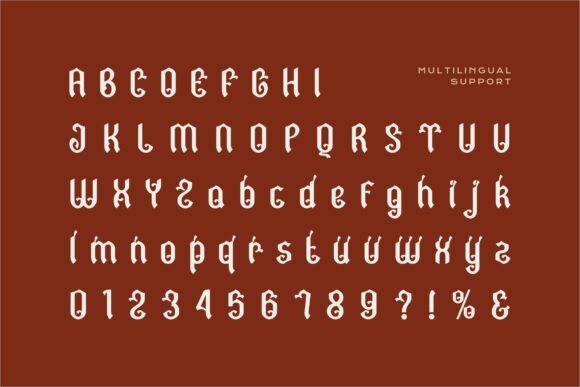
Kole Gemols Font: A Modern Twist on Traditional Blackletter
Kole Gemols font is a modern interpretation of traditional Blackletter, a style that has been around for centuries. This font combines the historic Gothic style with a contemporary touch, making it a unique and versatile choice for designers. In this article, we’ll explore the features and benefits of Kole Gemols font, and how it can be used in various design projects.
Key Features of Kole Gemols Font
Kole Gemols font boasts a range of distinctive features that set it apart from other Blackletter fonts. Some of its key features include:
- Thick and Angular Letterforms: Kole Gemols font features thick and angular letterforms that give it a dramatic and bold look.
- Ornate Decorative Details: The font includes intricate and ornate decorative details that add to its Gothic feel.
- Consistent Stroke Thickness: Kole Gemols font has consistent stroke thickness, which enhances readability while maintaining the dramatic feel of medieval script.
- Intricate Curves and Sharp Terminals: The font’s intricate curves and sharp terminals deliver a distinctive artistic look that’s perfect for headlines and titles.
Design Applications for Kole Gemols Font
Kole Gemols font is a versatile choice that can be used in a variety of design projects. Some of its ideal applications include:
- Headlines and Titles: Kole Gemols font is perfect for headlines and titles that require a bold and dramatic look.
- Heritage Branding: The font’s Gothic style makes it a great choice for heritage branding projects that require a touch of history and tradition.
- Editorial Design: Kole Gemols font can be used in editorial design projects, such as magazines and newspapers, to add a touch of drama and sophistication.
- Classical Concerts and Gothic-Themed Events: The font’s unique style makes it a great choice for classical concerts and Gothic-themed events.
Typography and Readability
Kole Gemols font is designed to be highly readable, despite its bold and dramatic style. The font’s consistent stroke thickness and intricate curves help to guide the eye through the text, making it easy to read.
The font’s typography is also highly legible, with clear and distinct letterforms that can be easily recognized. This makes Kole Gemols font a great choice for body text, as well as headlines and titles.
Inspiration and History of Kole Gemols Font
Kole Gemols font is inspired by traditional Blackletter, a style that originated in the Middle Ages. Blackletter was a popular style during the Gothic period, and was often used in illuminated manuscripts and other written works.
The font’s designer has taken the traditional Blackletter style and updated it with a modern twist, incorporating bold and angular letterforms with intricate decorative details. The result is a unique and versatile font that’s perfect for a wide range of design projects.
Comparison with Other Fonts
Kole Gemols font is often compared to other Blackletter fonts, such as Times New Roman and Garamond. However, Kole Gemols font has a unique style that sets it apart from these more traditional fonts.
Compared to Times New Roman, Kole Gemols font has a more dramatic and bold look, with thicker and more angular letterforms. Compared to Garamond, Kole Gemols font has a more ornate and decorative style, with intricate curves and sharp terminals.
Tips for Using Kole Gemols Font
Here are some tips for using Kole Gemols font in your design projects:
- Use it for Headlines and Titles: Kole Gemols font is perfect for headlines and titles that require a bold and dramatic look.
- Pair it with a Simple Font: Kole Gemols font can be paired with a simple font, such as Arial or Helvetica, to create a striking contrast.
- Experiment with Different Sizes: Kole Gemols font can be used at a variety of sizes, from large headlines to smaller body text.
- Pay Attention to Kerning: As with any font, pay attention to kerning to ensure that the letters are evenly spaced and look balanced.
Kole Gemols font is a unique and versatile choice for designers. Its modern interpretation of traditional Blackletter makes it a great choice for a wide range of design projects, from headlines and titles to heritage branding and editorial design.
With its bold and dramatic style, intricate curves and sharp terminals, and consistent stroke thickness, Kole Gemols font is sure to make a statement in any design project.